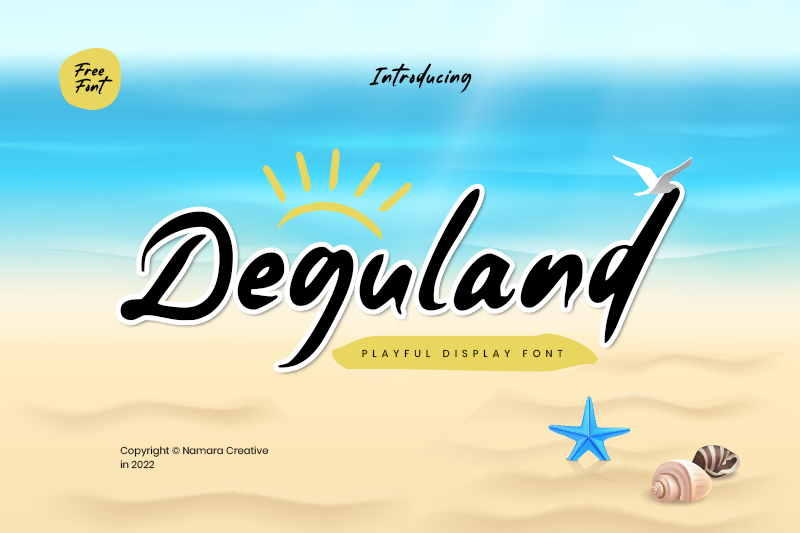
Preview and download Deguland Font. Created by Namara Creative in Script Brush styles with 100% Free license.
Font name: | Deguland |
Author: | Namara Creative |
Deguland is Natural font based on marker handwriting. This enchanting handwritten font will turn any creative idea into a true standout. This font is 100% FREE. Download completed version here : https://onedsgn.com/product/deguland/ Feel free to contact us if you have questions or problems, request a customized version or just to say hello on Instagram https://instagram.com/namaracreativestudio/ Thanks so much & enjoy your freebies. |